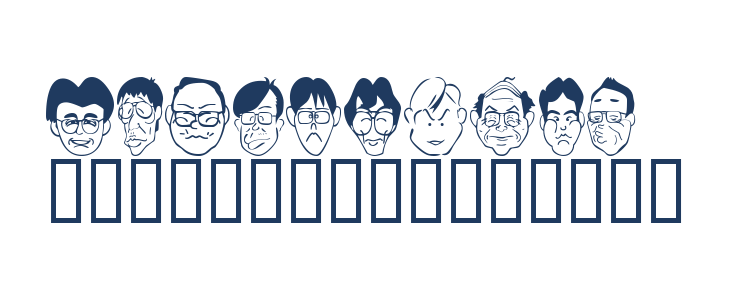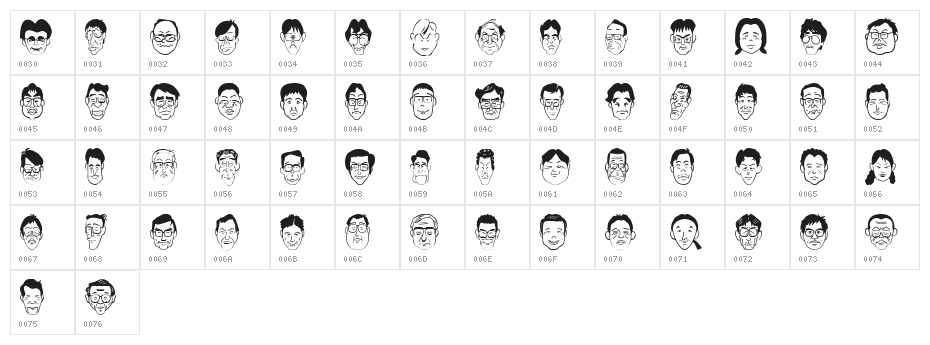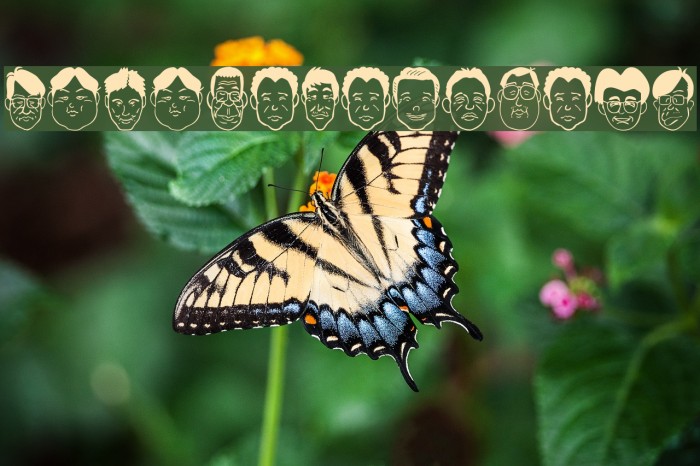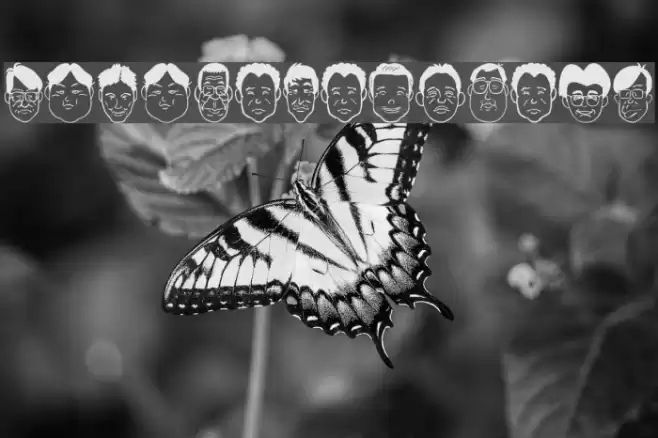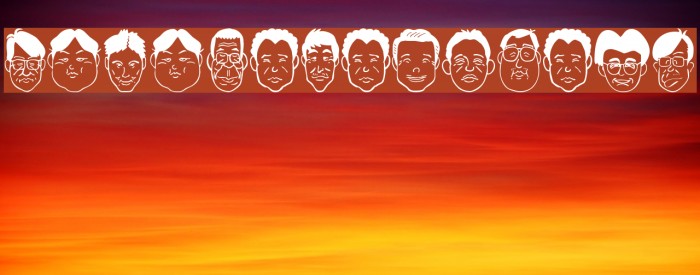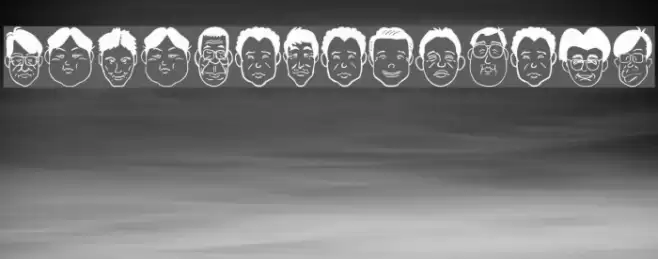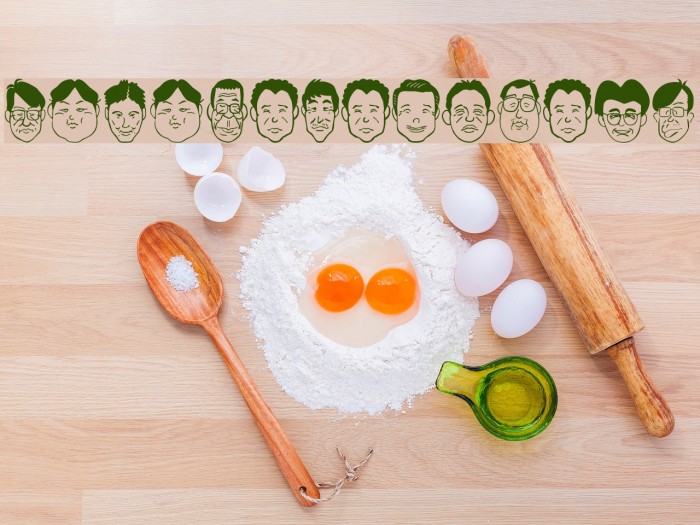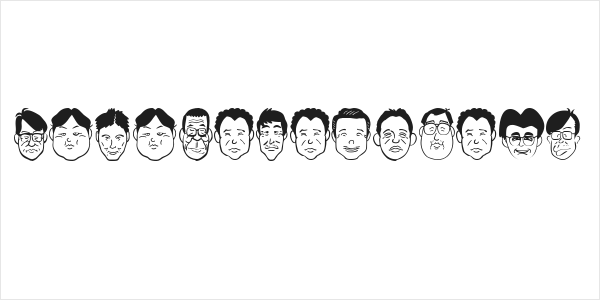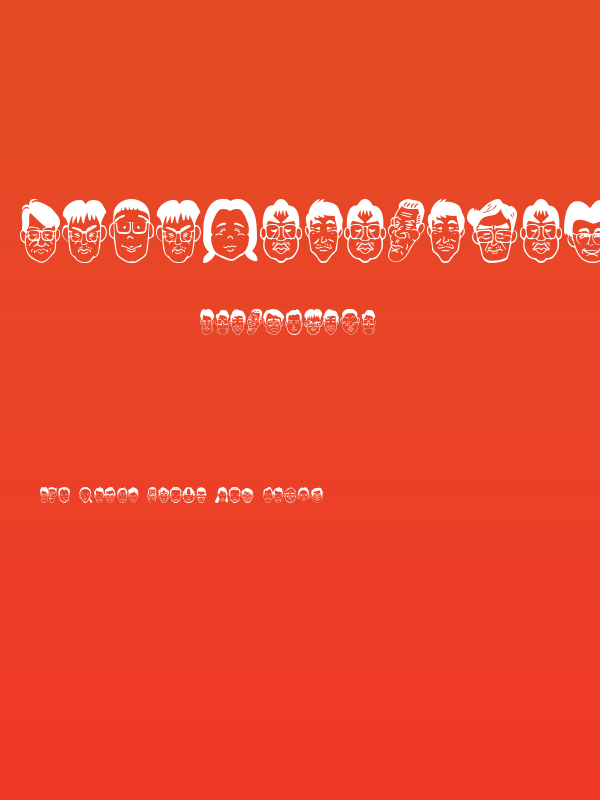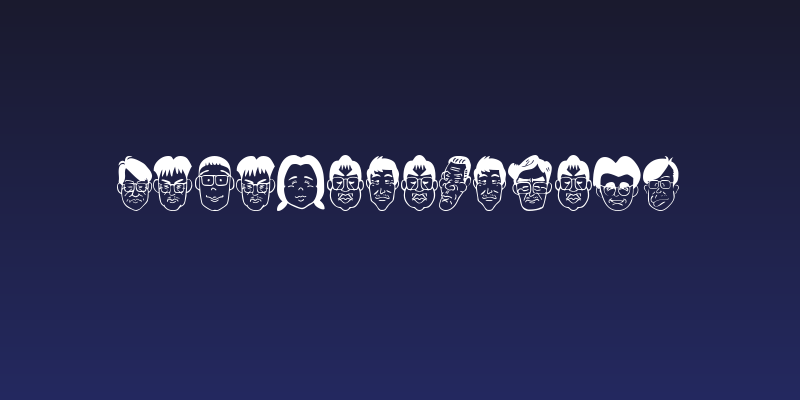
SakabePeople03 Font
SakabePeople03 Description
A decorative dingbat font featuring a variety of hand-drawn cartoon faces, each with unique expressions and hairstyles, rendered in bold black outlines with no color fill. The characters are highly stylized and caricatured, emphasizing facial features and individuality.
| Overall Style | Decorative, Playful, Cartoonish |
| Use Case | Dingbats, Icons, Decorative elements |
| Proposed Projects | Comics, playful branding, children's books, posters, novelty invitations, and graphic design accents. |